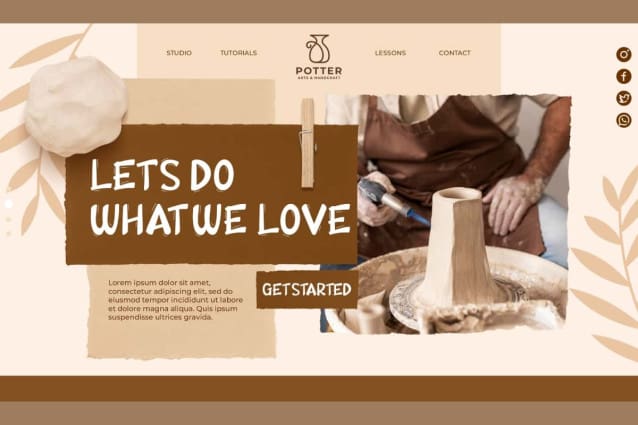
Tromboloni Display Font
Tromboloni Display Font is an attractive display font with a fun bubble style of cartoon comic letter theme. It is very well designed to potentially take any creative idea to the highest level. Use this bold font to add a simple modern retro touch to any design idea you can think of. You can experiment until you reach the cool typography visual goal you are after. Perfect for brochure, business card, heading, label, logo, packaging, poster, quotes, title, watermark, website, etc.
Tromboloni Display Font is a creative display font inspired by comic cartoons with unique effects on each character. The best font ever and created to accommodate the needs of creations that require dynamic, eye-catching, and easy-to-read letters. It is perfect for accessories and gifts, fashion, graphic design, handicraft, home furniture, movie, photography, printing, publishing, spa salon, toy store, and so much more.